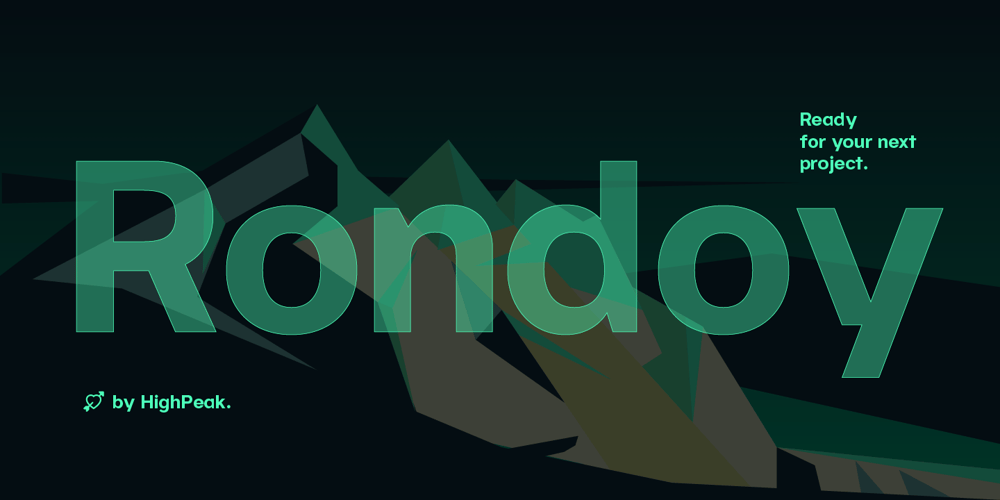
Rondoy Font Family was designed by Francesco Franciosi and published by High Peak. Rondoy contains 12 styles and family package options. High Peak is proud to present Rondoy, a clean, readable yet distinctive sans-serif typeface.The Rondoy family comes in six weights and matching italics for a total of 12 styles to unleash maximum expression and creativity, ready to give you all you need to bring your project to the next level. Each glyph in this family is crafted with passion and care.Rondoy is designed to be used in any context where style, modernity and legibility is a requirement.Enjoy!